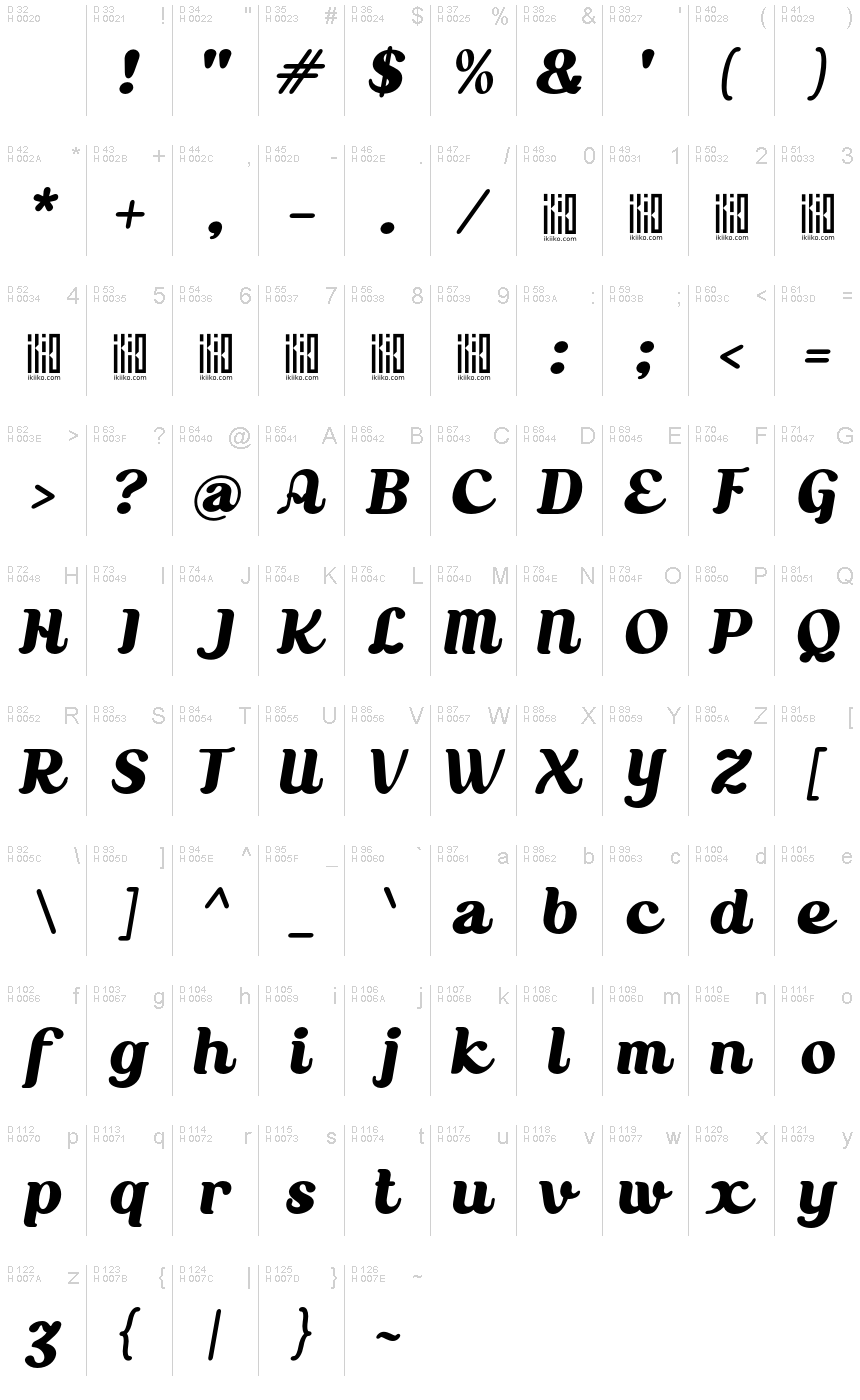
Clarinet, designed by Ikiiko Type, is a bold display font that evokes a sense of retro charm with its unique and stylish character. The font's rounded and expressive letterforms captivate the viewer, making it ideal for eye-catching headlines and creative design projects. Clarinet's strong presence ensures that any text set in this typeface will stand out with personality and flair.
Perfect for posters, branding, logos, or anywhere you want to infuse a vintage vibe with a modern twist, Clarinet offers versatility while maintaining its distinctive look. Its bold weight ensures readability while adding an artistic touch to your designs. Clarinet is more than just a typeface; it's an invitation to engage with creativity in bold strokes.